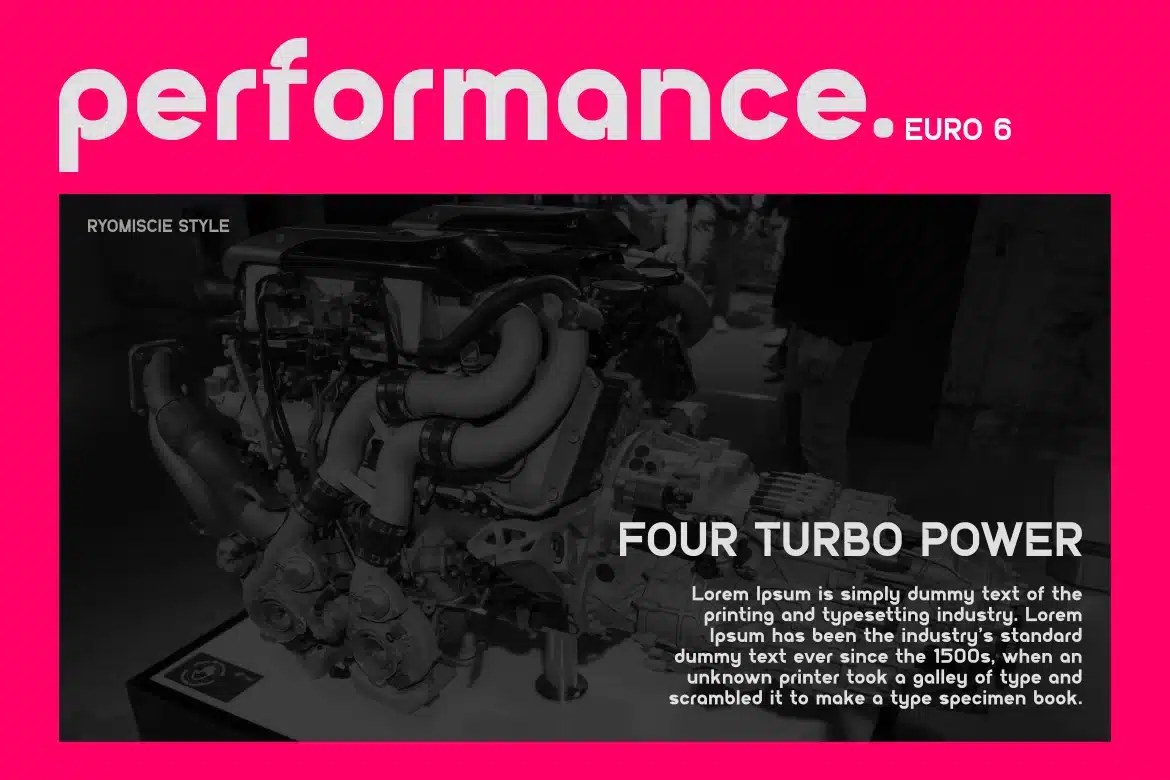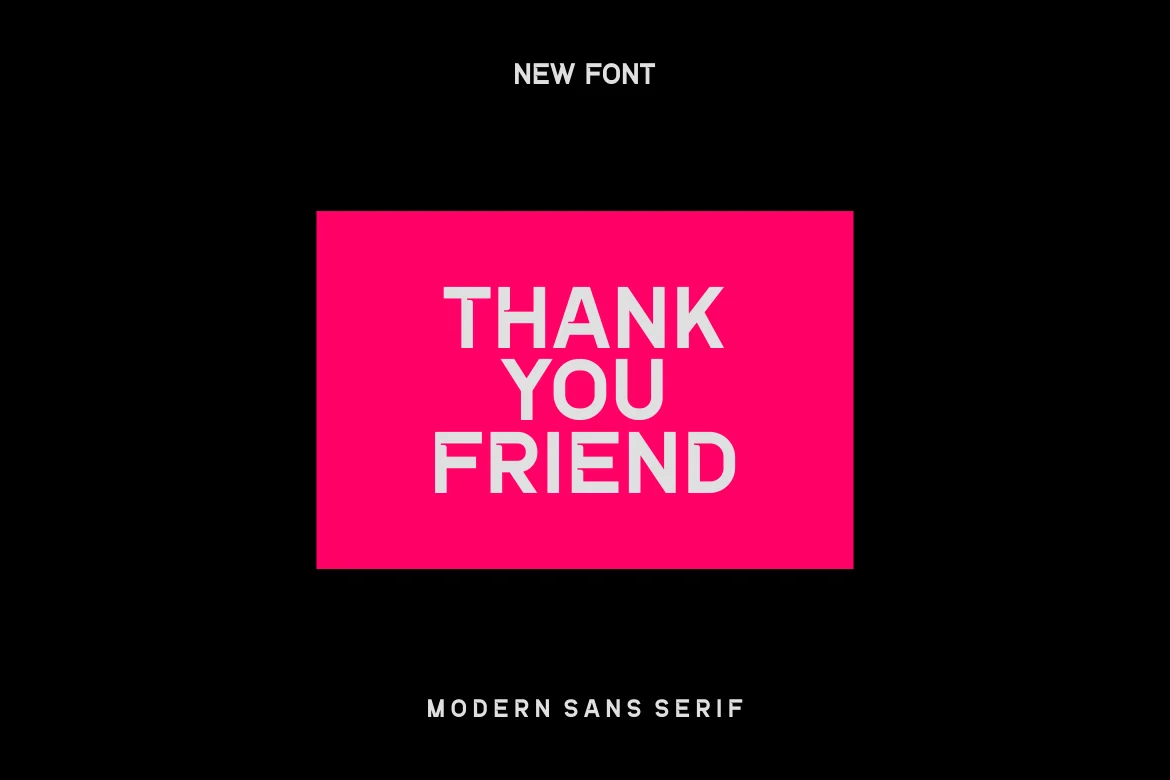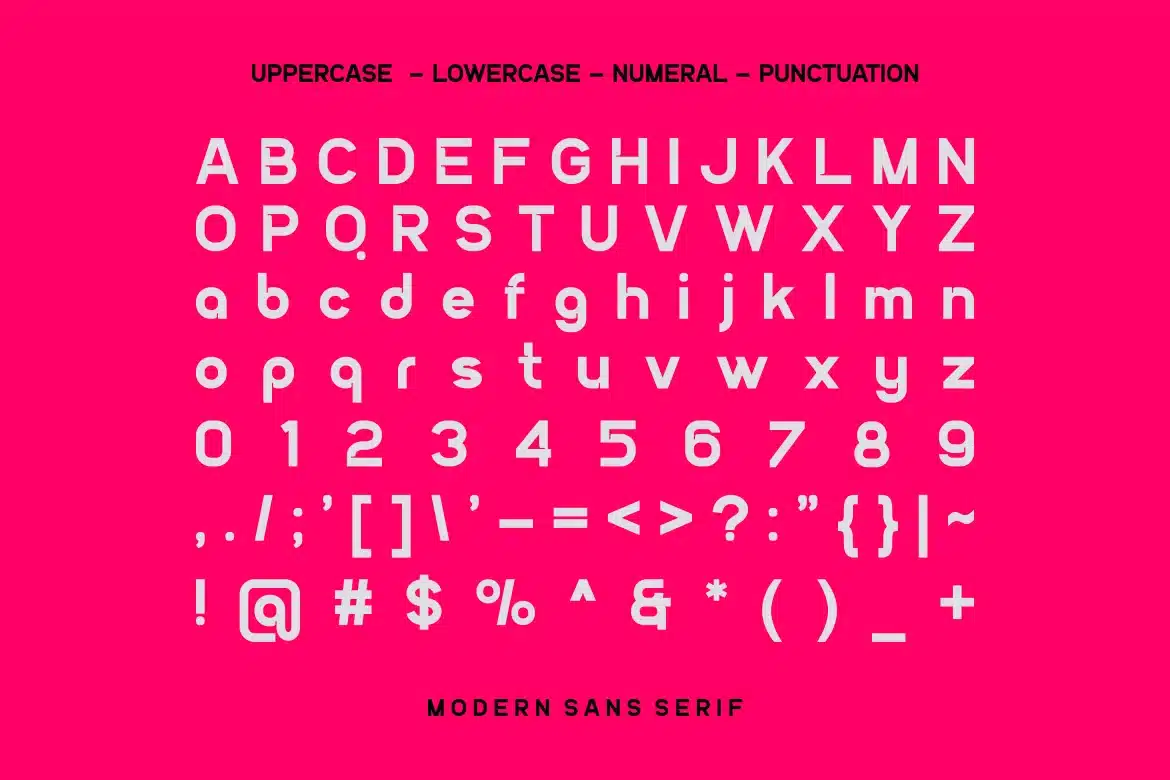
Ciprond – Modern Sans Serif Font
Introducing our new product Ciprond Font - Modern Sans Serif Font
Ciprond Font - Modern Font is a bold and authentic display font. The font is suitable for any branding project like logo,
t-shirt printing, esport, and many more. outstanding in a wide range of contexts.